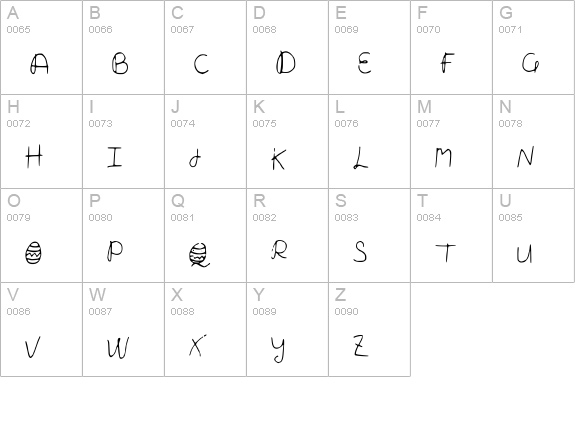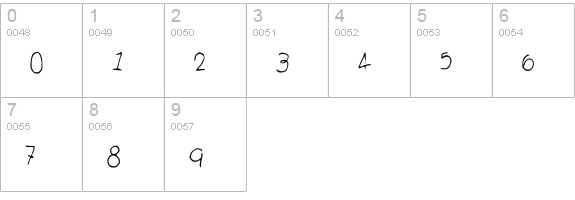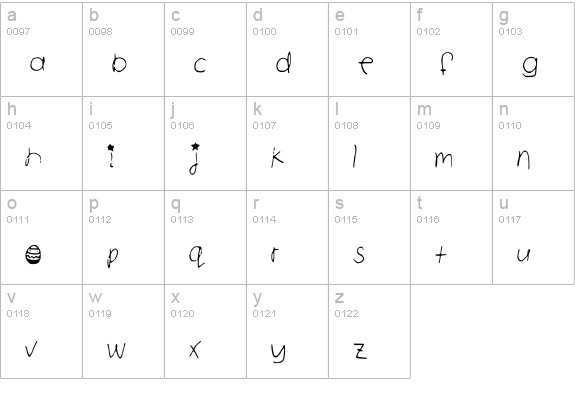
Introducing EasterYolk, a delightful and whimsical font that will add a touch of joy and playfulness to any design project. This unique typeface captures the essence of Easter with its charming and quirky letterforms, reminiscent of colorful Easter eggs waiting to be discovered. EasterYolk is a versatile font that can be used in a variety of contexts, from greeting cards and invitations to children's books and posters. Its gentle curves and playful details create a sense of warmth and cheer, making it perfect for any project that aims to evoke a sense of fun and celebration. But what truly sets EasterYolk apart is not just its captivating design, but also the fact that it is absolutely free! That's right, this wonderful font is freely available to download at FontsMarket.com. Whether you're a professional designer or a hobbyist, EasterYolk offers you the opportunity to bring your creative visions to life without any cost or restrictions. So why wait? Download EasterYolk today and unlock a world of endless possibilities. Let your imagination run wild as you create stunning designs that will make hearts skip a beat and bring smiles to faces. Whether you're designing Easter-themed projects or simply looking to infuse your work with a touch of whimsy, EasterYolk is the perfect companion. Get ready to spread the joy and make your designs truly egg-cellent with EasterYolk font.